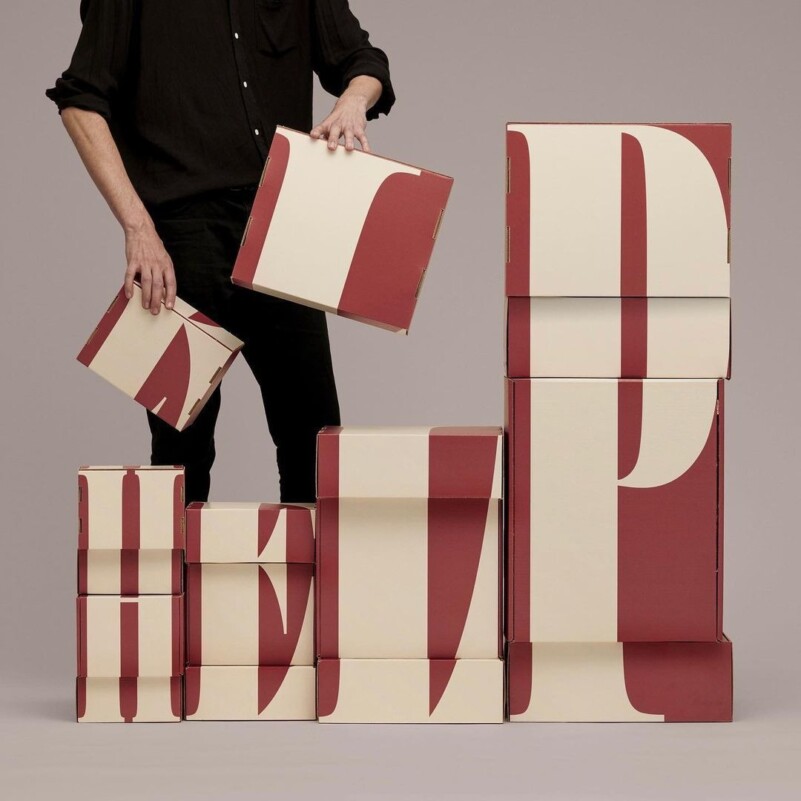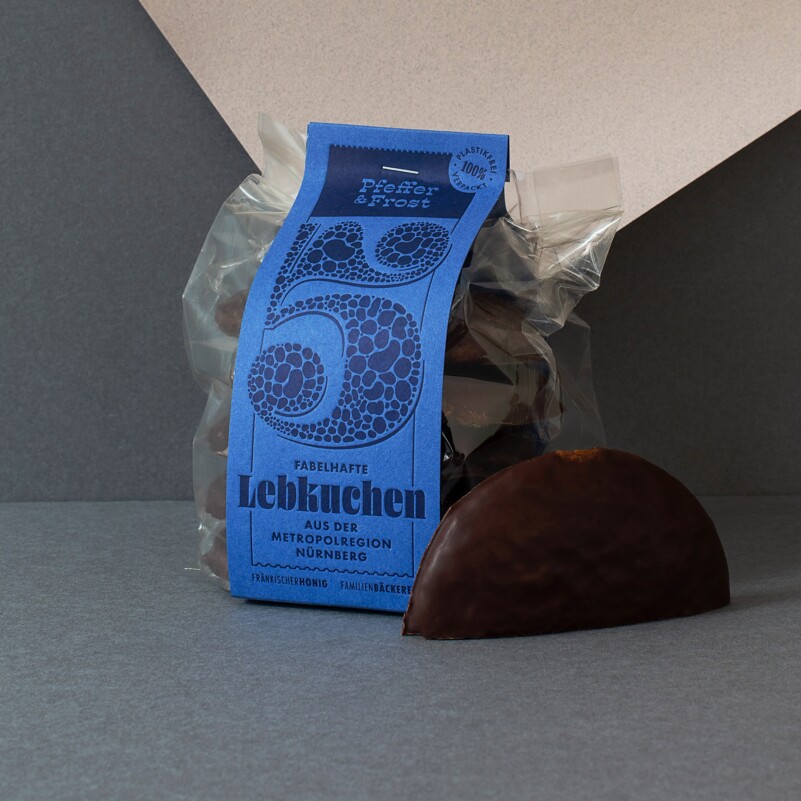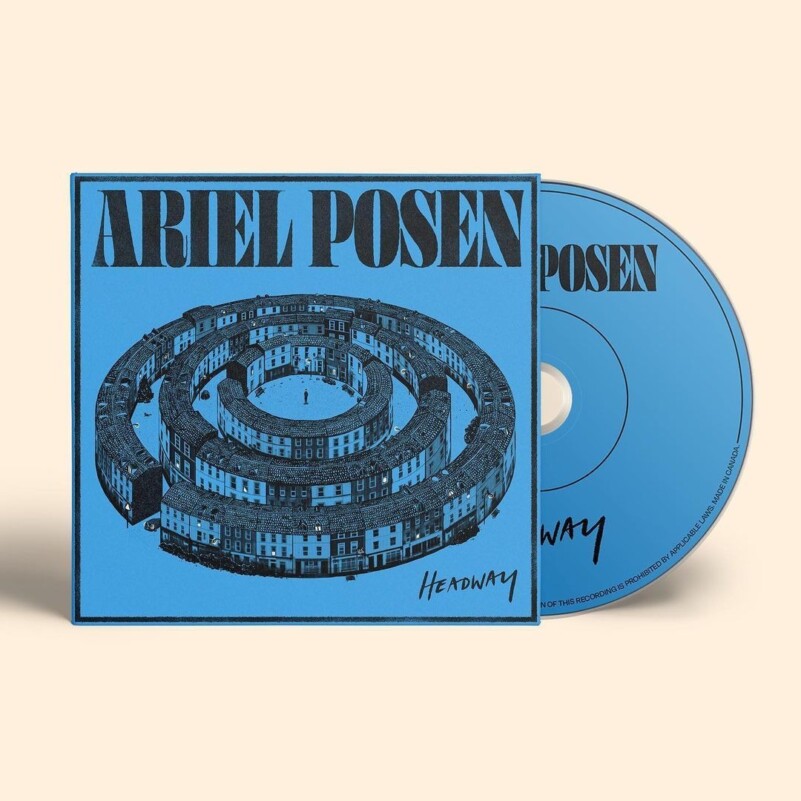
Fatface Complete Font Family
Beginning in the (early) 1800s, the Fann Street foundry in London produced a few designs in the brand new genre of “fatfaces.” They were intended for short words to be printed HUGE, and for this purpose, they worked quite well! In the 1970s, everything old was new again, but this time the exaggerated proportions of the era infected the x-heights of many well-trodden styles. Weight was pushed to new extremes. Negative space in and around letters shrank to minuscule specs of white.
A great deal of type design revolves around making positive space consistent—for instance making sure all your verticals are exactly 90 units wide. But as type gets into the bold, black, and ultra weights, it becomes more necessary to make sure that your negative spaces are as consistent as possible. This allows an even texture where no one letter or pocket of whitespace stands out more than any other.